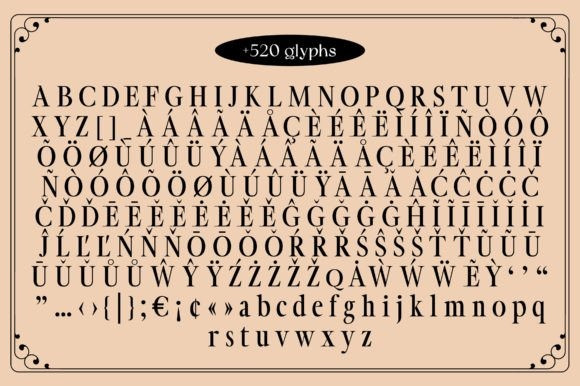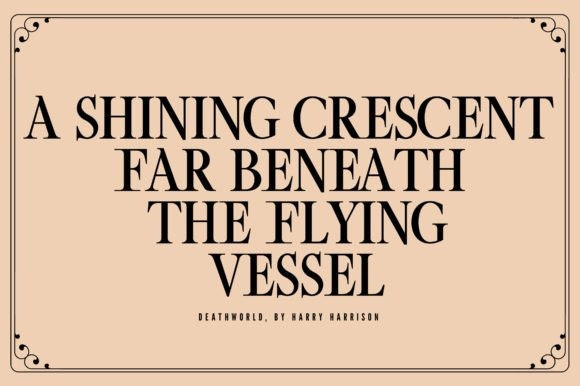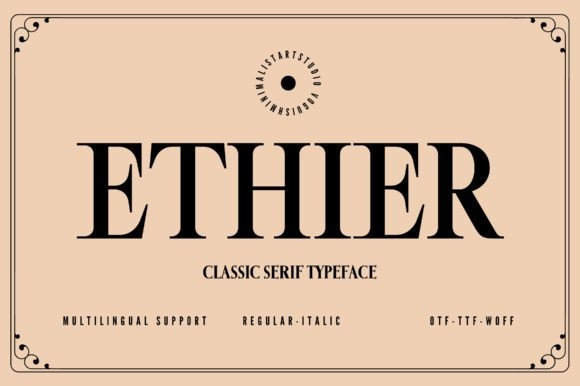
Ethier Font
Ethier Font, the perfect serif font for those seeking a chic, elegant and minimalist aesthetic. With its clean lines and timeless appeal, Ethier is the ideal choice for any project that requires a touch of sophistication.
But don’t let its simplicity fool you – Ethier is a font of many talents, boasting over 520 glyphs to ensure that it can meet all of your design needs. Whether you’re crafting a logo, designing a brochure, or creating a website, Ethier has the versatility to adapt to any project.
And with multi-lingual support, Ethier is truly a font for the world. It can handle a wide range of languages, making it a great choice for global brands, multilingual websites, or any project that requires multi-language support.
But what really sets Ethier apart is its attention to detail. Each glyph has been carefully crafted to ensure that it flows seamlessly with the rest of the font, resulting in a harmonious and visually pleasing design. The result is a font that exudes a sense of refinement and style.
So if you’re looking for a font that can take your design to the next level, look no further than Ethier. With its timeless elegance, extensive glyph library, and multi-lingual support, Ethier is sure to become your go-to font for all of your design needs.